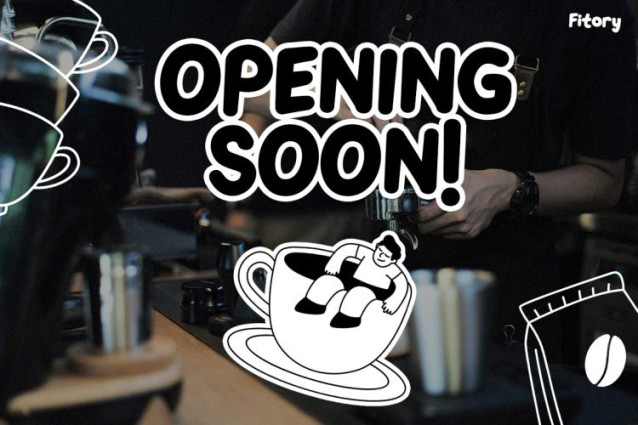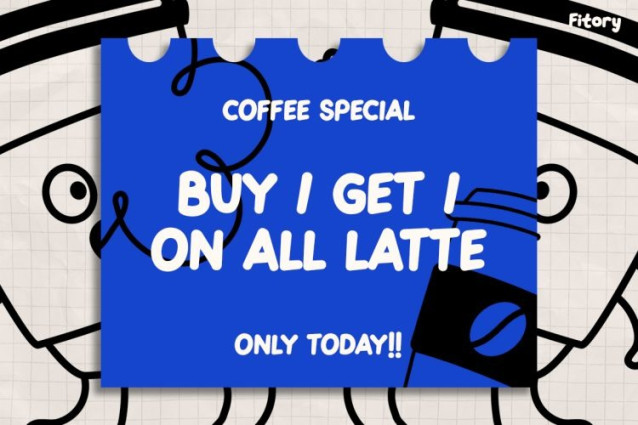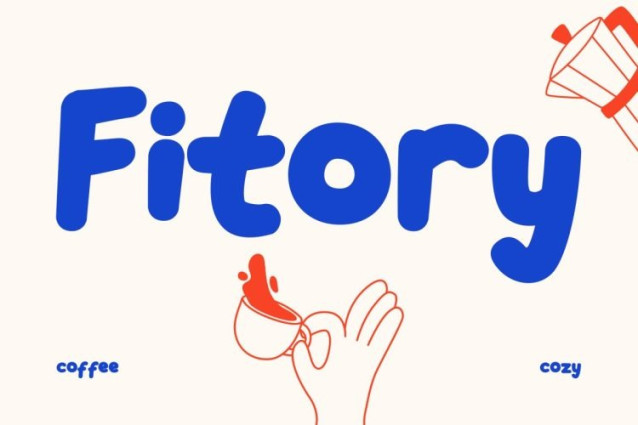
Fitory Font is a charming, hand-drawn typeface that brings warmth and joy to any design. Its rounded edges and soft curves create a friendly look. Moreover, the playful letterforms feel lively and expressive. Slight imperfections also give it a natural, handwritten style. As a result, every word appears more personal and engaging. The bold yet cozy shape keeps it easy to read. Therefore, it becomes perfect for eye-catching and fun visuals. In addition, it instantly adds a cheerful mood to any layout.
Kids Font Fitory includes uppercase, lowercase, numbers, and punctuation. Thus, it works well for both short and longer text. The font fits perfectly with colorful and illustrated layouts. For example, it shines in cozy and cheerful themes, especially coffee-style designs. You can use it on bright backgrounds or photos. Even so, it stays clear and bold. The soft curves and strong strokes create a nice balance. As a result, your message remains readable and engaging. Furthermore, it adapts well to both digital and print formats, making it highly versatile.
This font is great for designers and content creators. In addition, it suits small business owners. You can use it for coffee shop branding, kids products, and social media posts. It also works well for posters, menus, packaging, and logos. Therefore, it is ideal for brands that want a warm and friendly style. The playful look helps create a strong emotional connection with audiences. Moreover, it is perfect for event promotions, banners, and creative campaigns.